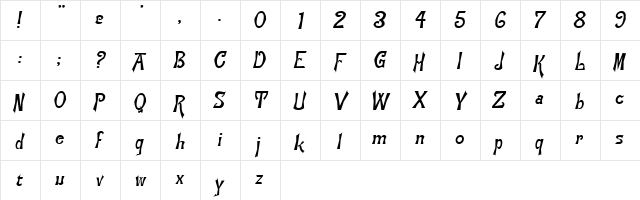
Zeist Oblique
Design Context for Zeist Typeface
Zeist is a composed and adaptable typeface that performs quietly and consistently across a wide range of design contexts. Its italic angle brings a sense of urgency and motion to the letterforms.
Pro Tip: Try Zeist for annotation and caption copy alongside an upright companion — the contrast in angle creates a dynamic but ordered typographic system.